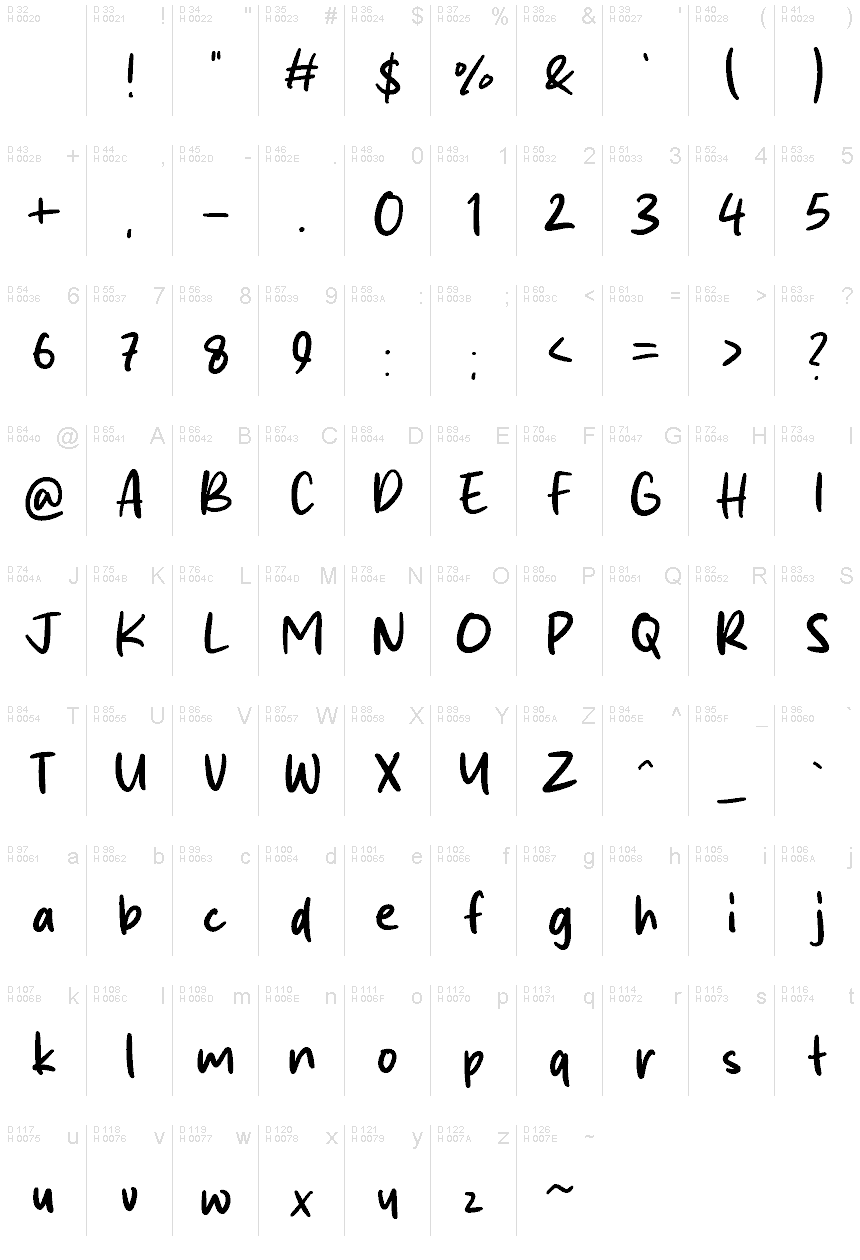
Gourami
Gourami font by MJType is a free handwritten font with a casual mood and smooth flow. This approachable feel, mixed in with a creative touch, makes it difficult not to like the design which will impress both professionally and personally.
Have fun applying this item to greeting cards, social media posts, kids’ books covers or pages, coloring books etc. Other suggestions would be stationery designs like invitations or business cards as well as branding presentations.